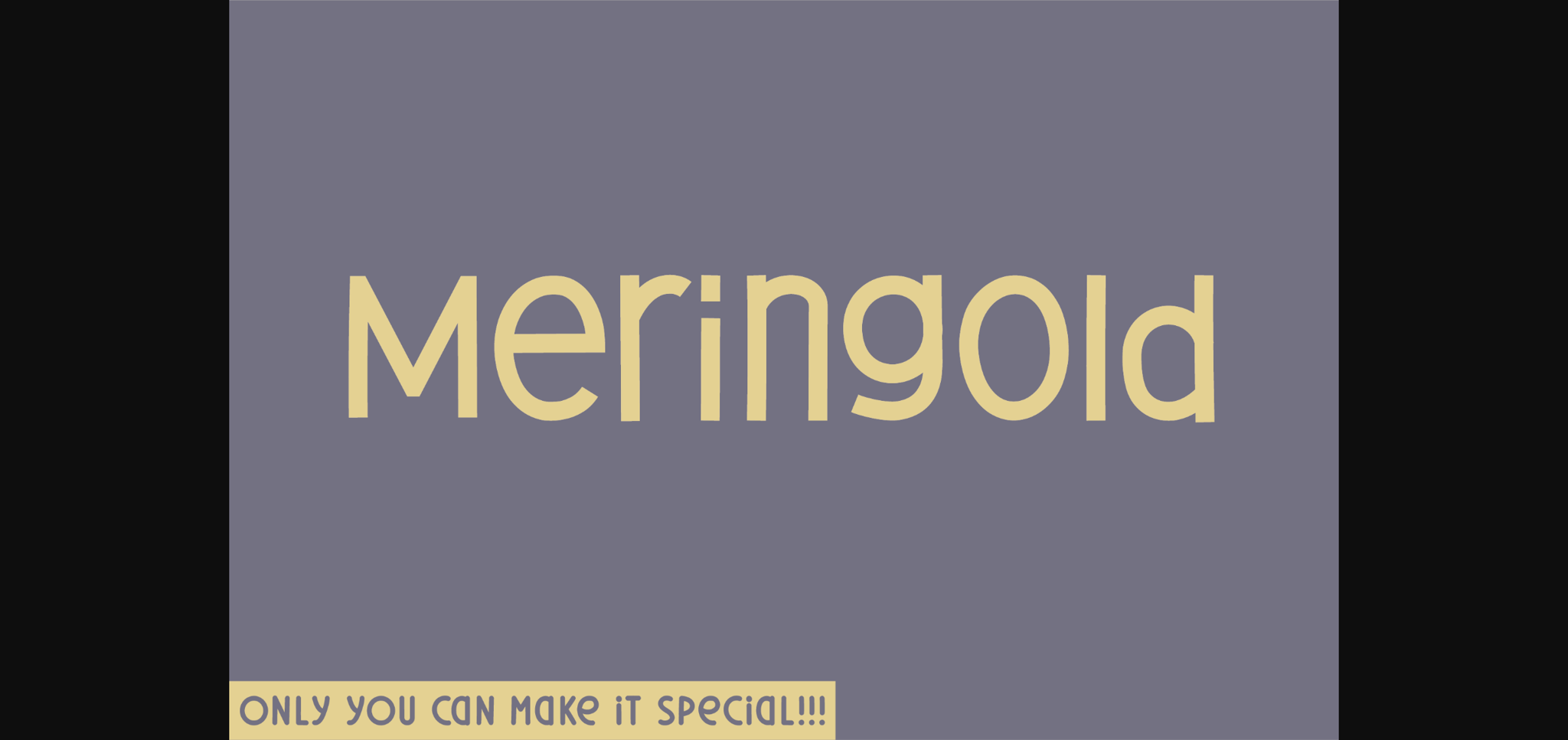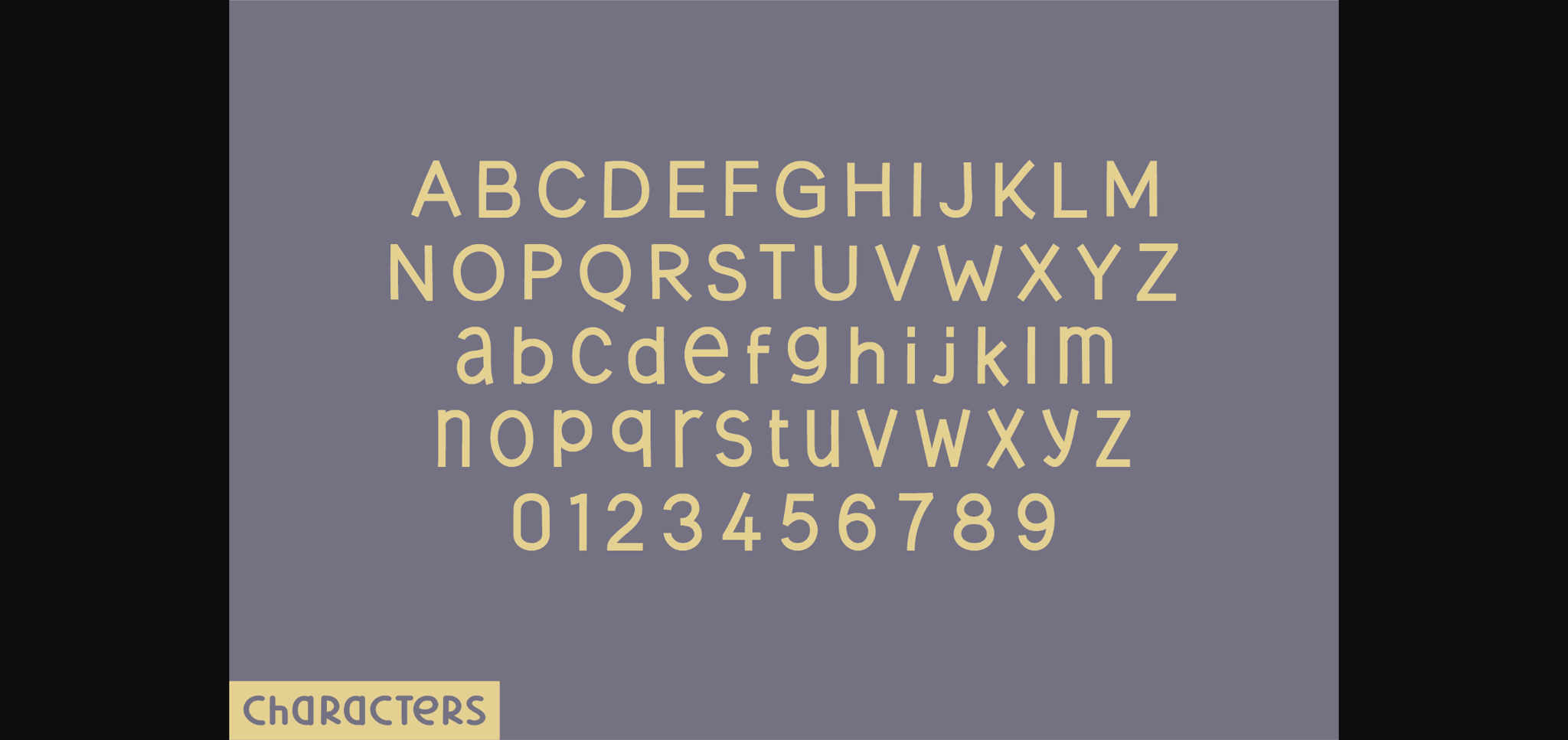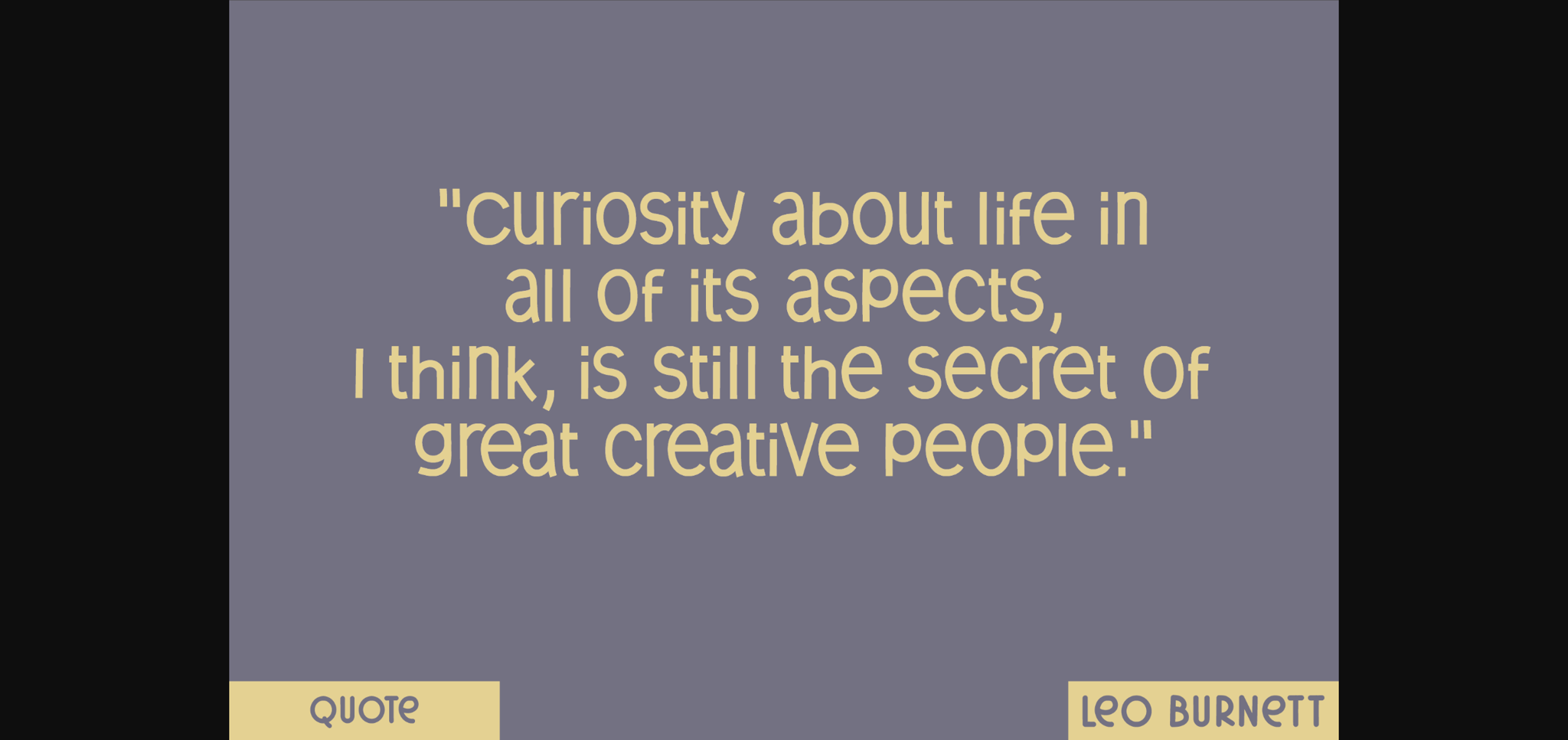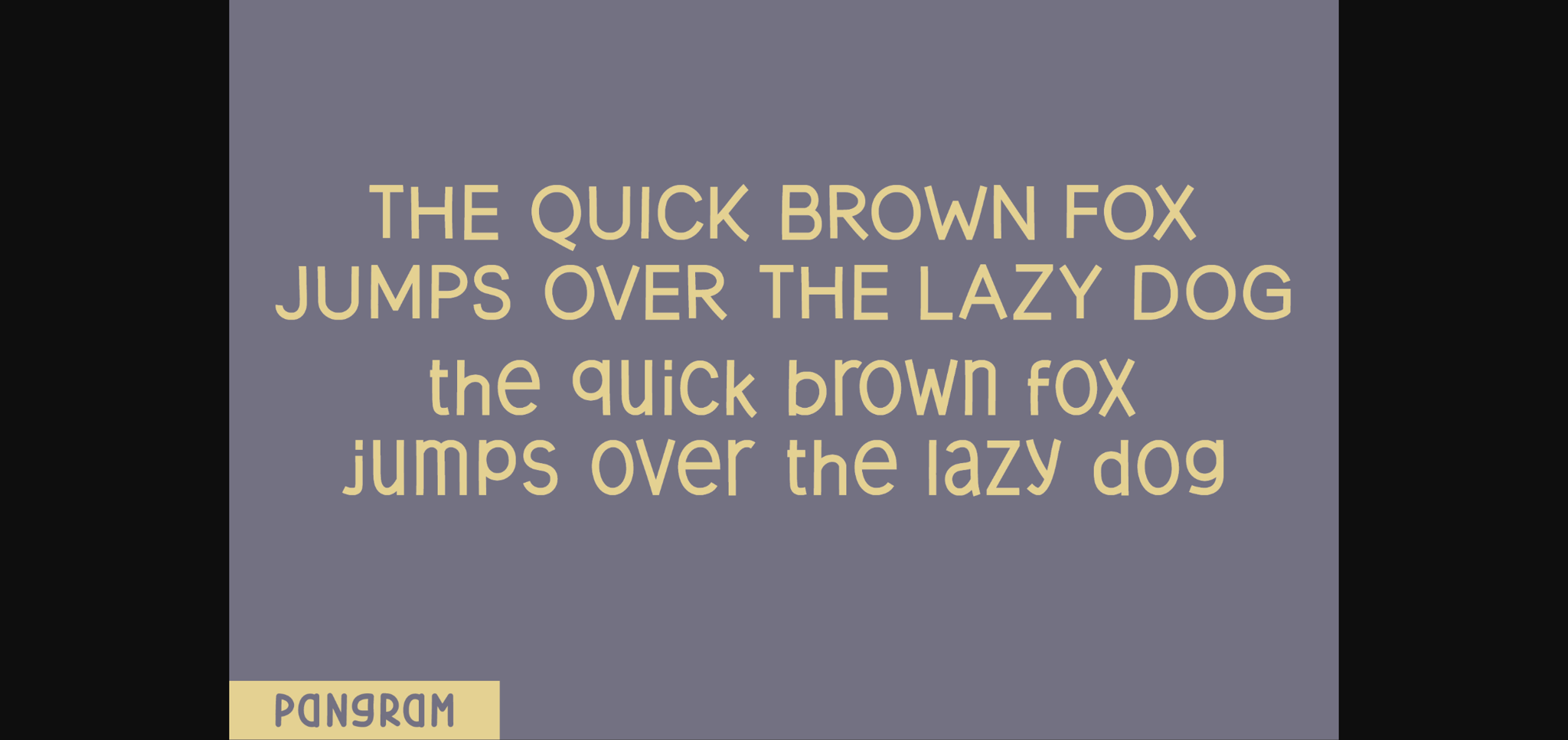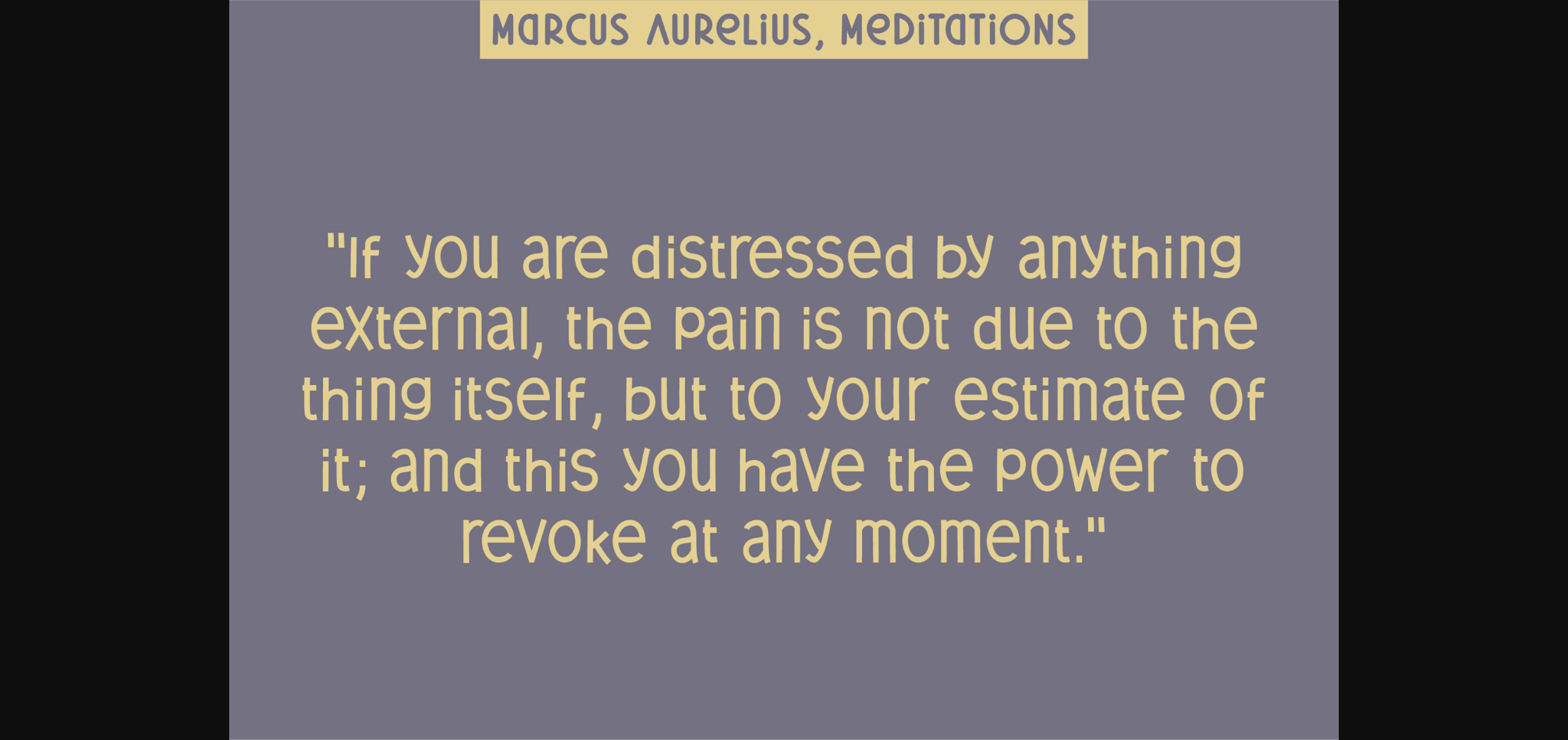
Meringold Font
About Meringold Font
Immerse yourself in the captivating charm of Meringold, a standout display font distinguished by its sans serif model. With each character crafted in conventional shapes, Meringold leaves an impression that intertwines strength and uniqueness. Its heart-stirring design makes it an ideal choice for showcasing messages that demand audacity, originality, and unapologetic boldness. Harness the power of Meringold, where unparalleled aesthetics meet daring design expressions.